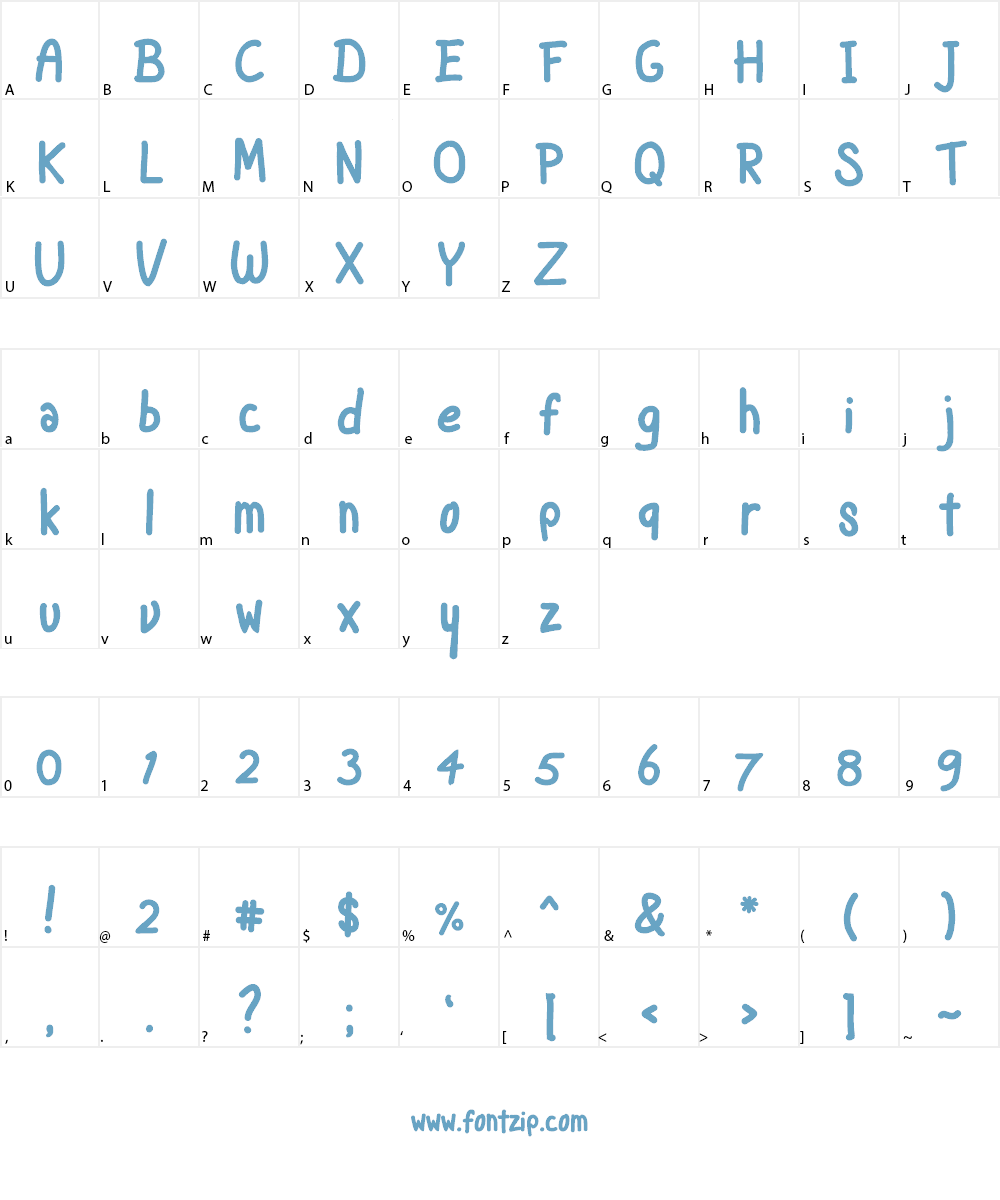
A typeface suitable for comics and cartoons and a nice alternative to Comic Sans.
Dion features extensive language support and 23 ligatures.
(This typeface was used extensively for a Dutch international educational campaign called "Zonder Cash ben je nergens" ("You're nowhere without cash"). Princess Maxima officially started the campaign.)